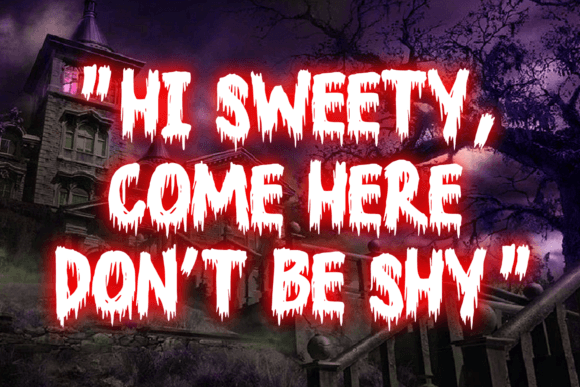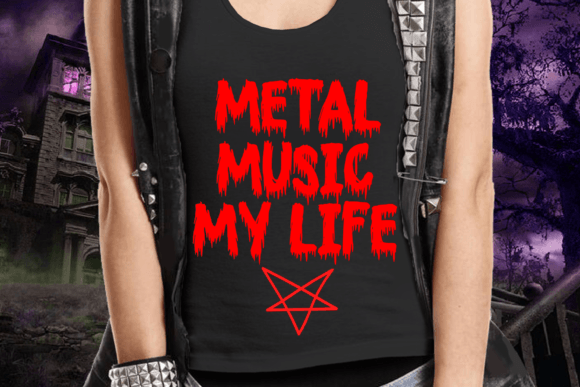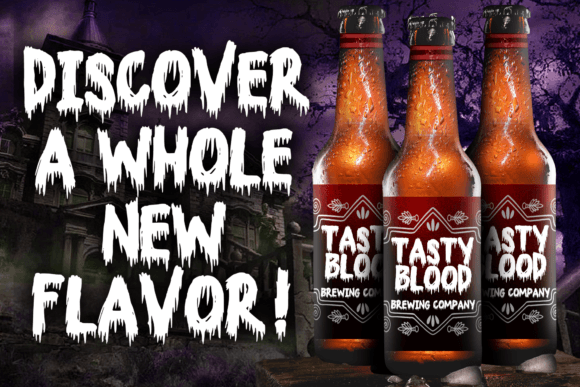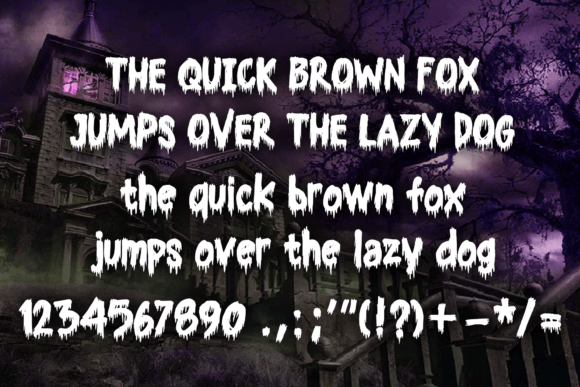
Unleashing the Horror: Introducing Blood Gore Font
Have you ever been brainstorming ideas for a horror-themed project, and suddenly, the perfect font pops into your mind? It’s like a spark of creativity that sets your imagination ablaze. For designers, that moment is a game-changer. And for those who crave a font that exudes the essence of vintage horror movies, horror comics, and metal music, we’ve got just the thing – Blood Gore Font.
This amazing ink drips font is not just a visual treat, but a versatile tool that can elevate your designs from mere mortals to masterpieces. Whether you’re creating merchandise, book designs, or party materials, Blood Gore Font is the perfect companion to bring that horror touch to your projects. Its value lies in its ability to evoke the right emotions and set the tone for a thrilling experience. With Blood Gore Font, your designs will scream for attention, and your audience will be hooked.
Blood Gore Font Key Features
- Font Style: A distressed, horror-themed font with a bold and gritty appearance.
- Unique Characteristics: The font features unique, hand-drawn elements, including blood splatters and gore details, adding a touch of horror and realism to any design.
Blood Gore Font Review
I recently had the chance to experiment with the Blood Gore Font and here’s my honest take on it.
- The font’s unique, horror-inspired design makes it perfect for creating a spooky or eerie atmosphere in your projects.
- The font is highly customizable, allowing you to adjust the blood splatter effects and gore details to suit your design needs.
- The font supports a wide range of languages, making it a great option for international projects.
- The font is well-suited for use in titles, headings, and other prominent text elements where you want to grab the user’s attention.
- The font’s design can be overwhelming or distracting if used excessively, so it’s best to use it sparingly to create a lasting impression.
- The font may not be suitable for use in text-heavy content or for readers who are easily disturbed by gore or violence.
- The font’s customization options can be overwhelming, especially for those without prior design experience.
Overall, I think the Blood Gore Font is a great addition to any designer’s toolkit, but it’s essential to use it thoughtfully and with consideration for your audience.
Use Blood Gore Font for horror-themed designs, such as posters, flyers, and social media graphics. It’s also great for adding a spooky touch to your Halloween-themed designs. To get the most out of this font, experiment with different font sizes, colors, and styles to create a dramatic effect.